Enhancing the Design of Marriage Muslim Quotes with Harmonious Typography
Choosing the right typography will make your quotes about Muslim marriage feel truly solemn and leave a lasting impression on all who read them. Typefactory provides high-quality options that support Islamic and modern aesthetics alike.
1. Lajamillah
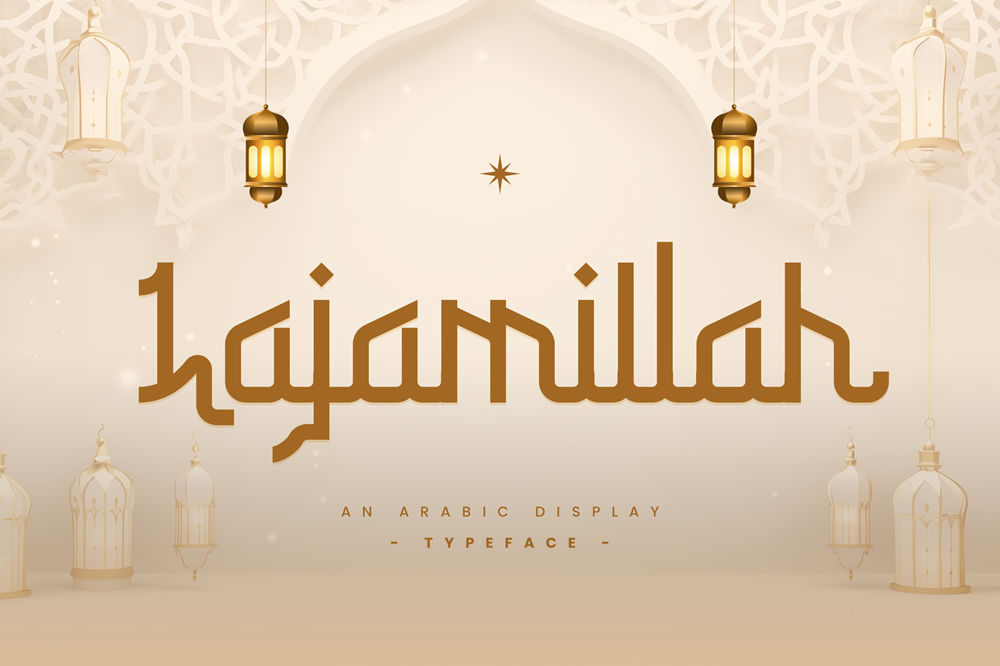
Artistic font choice for modern twist.
2. Labaniy
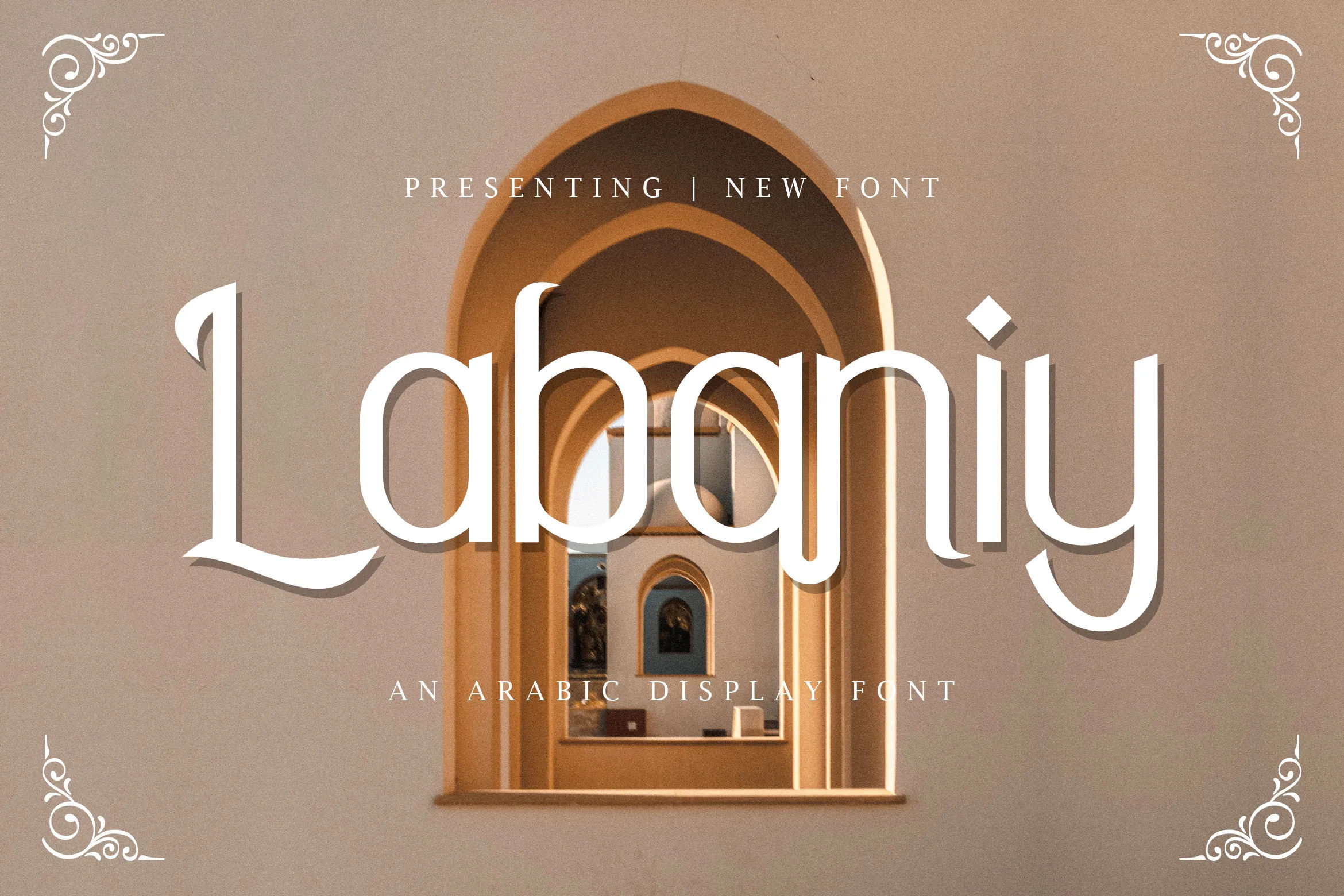
Versatility in its traditionally graceful style.
3. Namhala
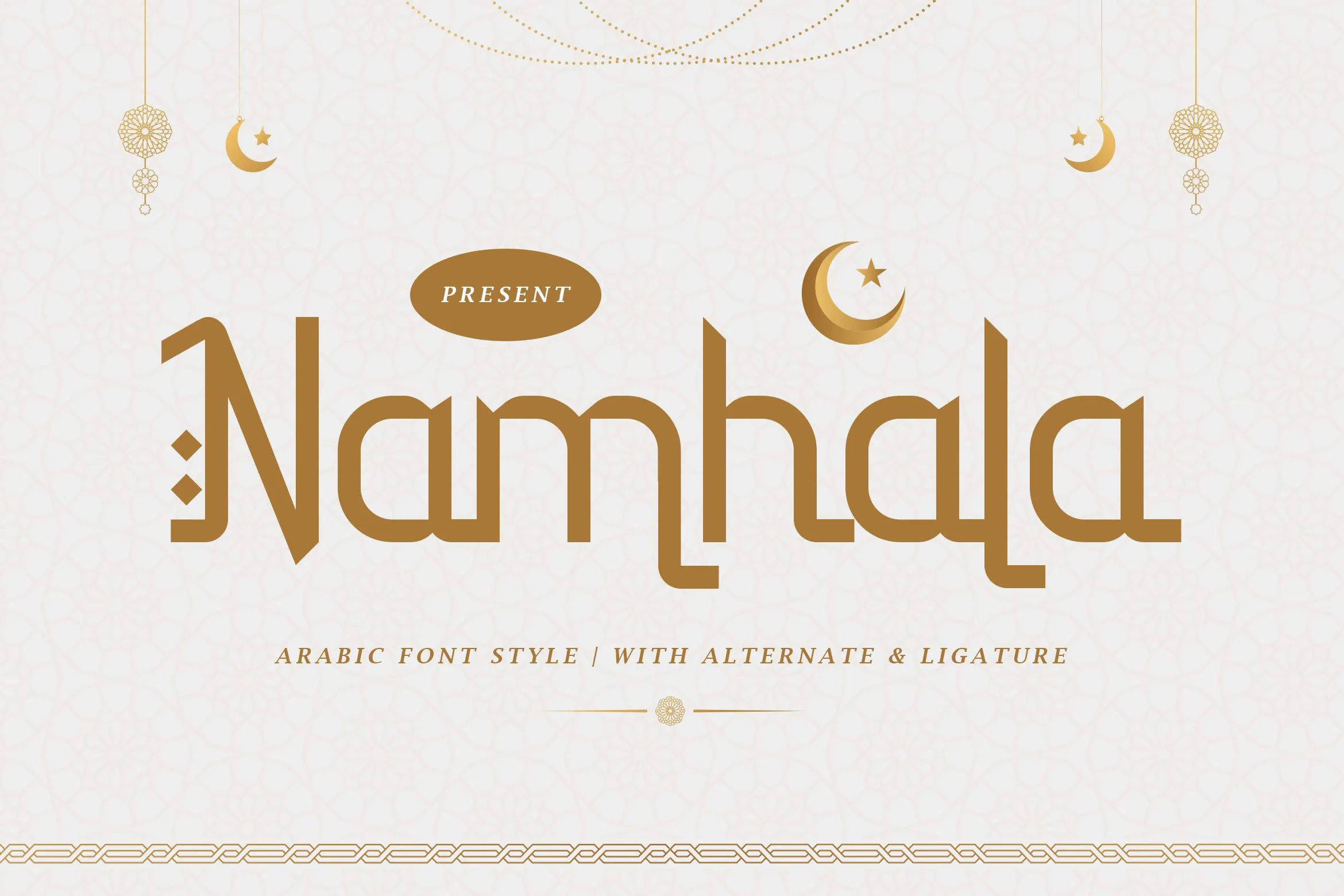
Ideal font for casual authenticity and a warm design theme.
4. Raisyar
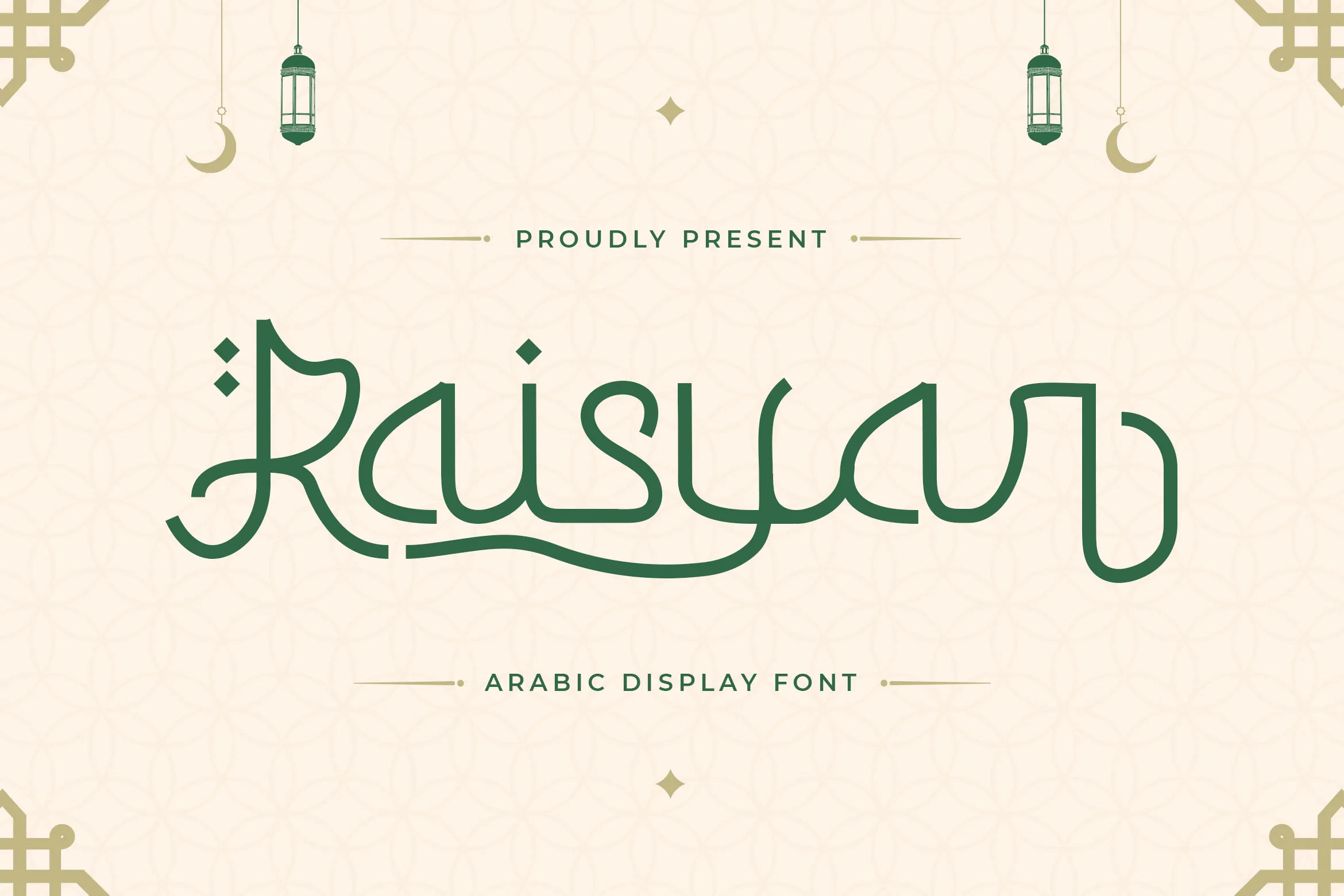
Rich in calligraphic charm to emphasize cultural meaning.
5. Hakan
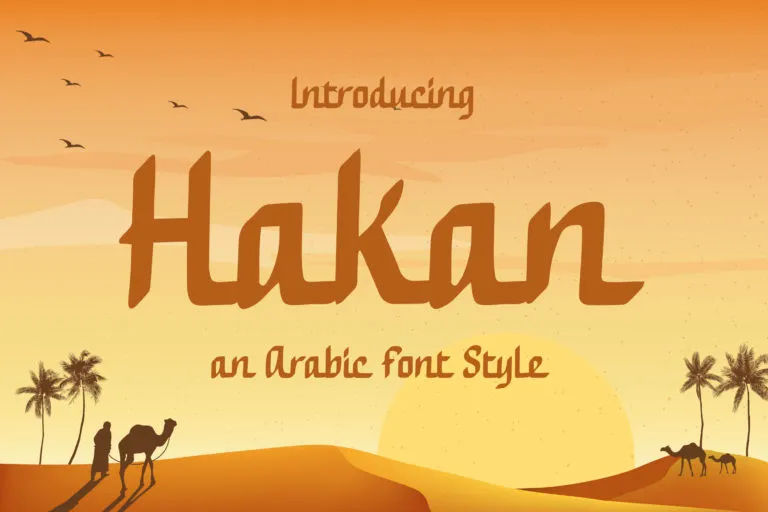
Simple Arabic retro font style for nostalgic vibe and readability.
6. Aslah
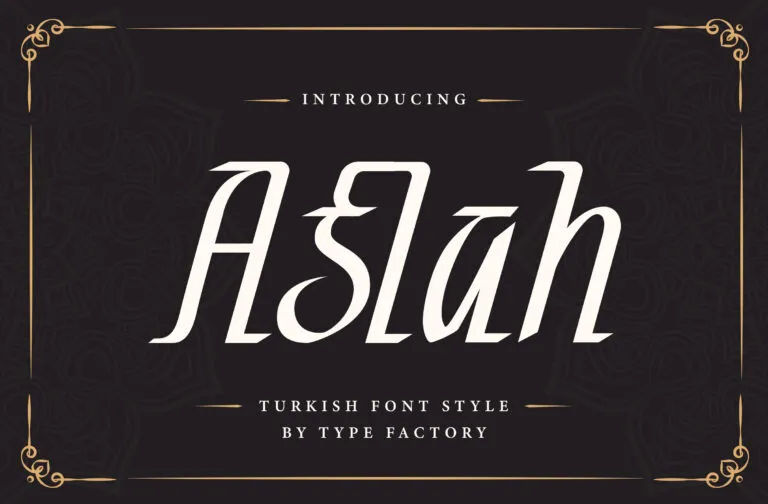
Decorative for straightforward statements.
7. Delik
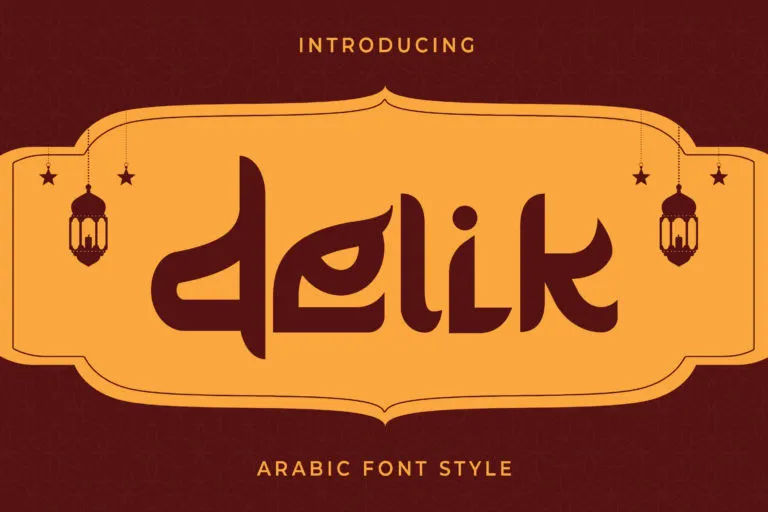
Strong Arabic letter style for classic feels.